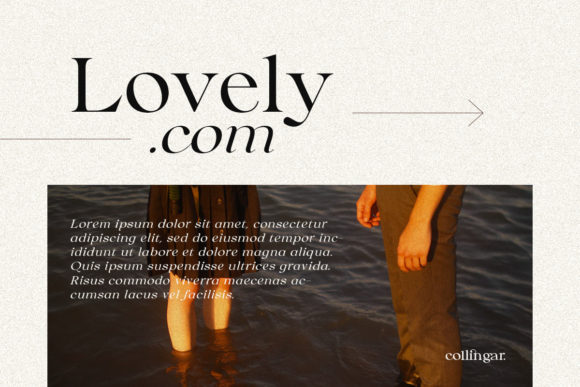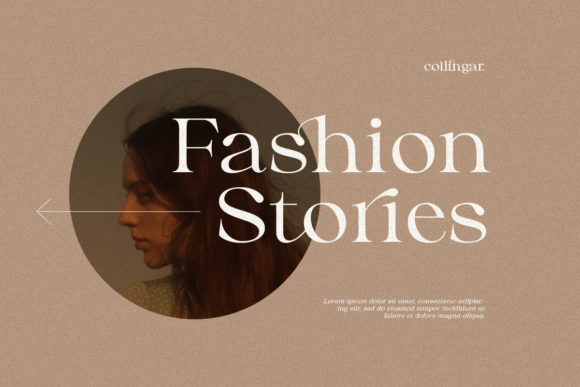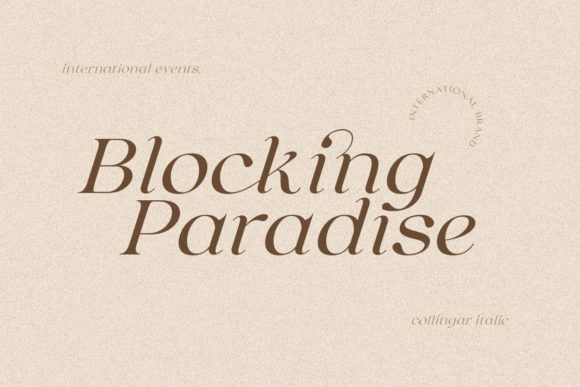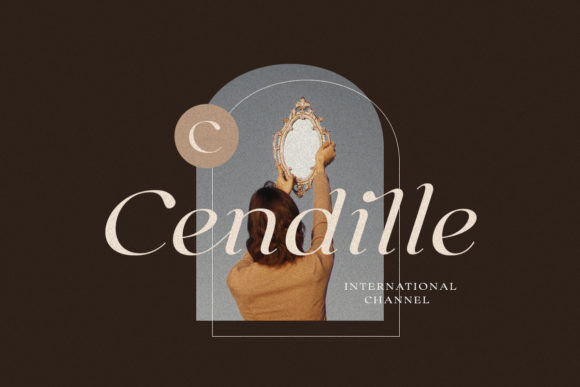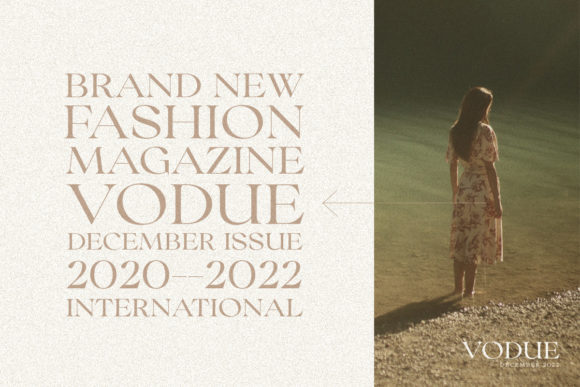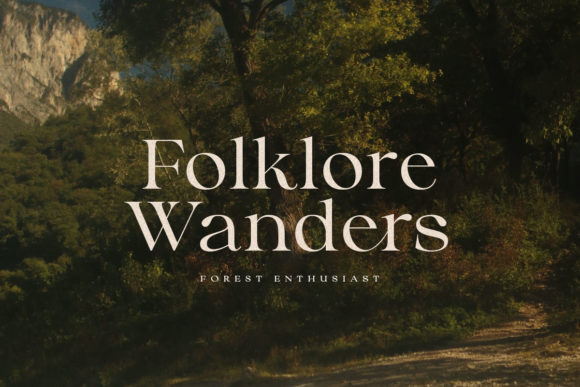
Introducing Collingar Font: Elevate Your Designs with Classic Elegance
In the world of typography, a well-chosen font can make all the difference in transforming a design from ordinary to extraordinary. For designers and crafters seeking a touch of classic elegance and sophistication, Collingar Font is an exceptional choice. This beautifully crafted serif font is not only a feast for the eyes but also a versatile tool that can elevate your projects to new heights.
What Makes Collingar Font Stand Out?
Collingar is a classic and elegant serif font that exudes refinement and poise. Its timeless design ensures that it can be used across a wide range of projects, from luxury branding and high-end magazines to elegant wedding invitations and sophisticated packaging. The font’s versatility is one of its most compelling features, making it an indispensable asset for any designer looking to add a touch of class to their work.
One of the standout features of Collingar Font is its PUA (Private Use Area) encoding. This means that accessing the font’s extensive range of glyphs and swashes is incredibly straightforward. Designers can easily incorporate intricate details and flourishes into their work, allowing for a high degree of customization and creativity. Whether you’re looking to add a subtle touch of elegance or a bold statement piece, Collingar Font provides the tools you need to bring your vision to life.
Crafted for Beauty and Refreshment
Collingar Font was particularly crafted for those who need a beautiful and refreshing look to their designs. In today’s fast-paced digital landscape, it’s easy for designs to become stale and forgettable. However, with Collingar, you can inject a much-needed dose of elegance and sophistication into your work. The font’s classic design ensures that it remains relevant and stylish, even as trends come and go.
Applications of Collingar Font
The applications of Collingar Font are as diverse as they are exciting. Here are just a few examples of how this versatile font can be used:
- Branding and Logo Design: Create a lasting impression with a sophisticated logo that stands out from the crowd.
- Print Materials: Elevate your brochures, flyers, and posters with a touch of elegance and refinement.
- Packaging: Add a touch of luxury to your product packaging and make it truly unforgettable.
- Digital Media: Use Collingar Font to add a touch of sophistication to your website, social media graphics, or digital advertisements.
- Crafting and DIY Projects: Whether you’re creating handmade cards, scrapbooking, or working on other craft projects, Collingar Font can add a beautiful and professional touch.
Why Choose Collingar Font?
With so many fonts available, why choose Collingar? The answer lies in its unique blend of classic elegance and versatility. Here are just a few reasons why Collingar Font should be at the top of your list:
- Timeless Design: Collingar Font’s classic design ensures that it will remain stylish and relevant for years to come.
- Ease of Use: With PUA encoding, accessing the font’s extensive range of glyphs and swashes is incredibly straightforward.
- Versatility: From luxury branding to crafting and DIY projects, Collingar Font can be used across a wide range of applications.
- Elegance and Sophistication: Add a touch of refinement and poise to your designs with Collingar Font’s elegant serif design.
In conclusion, Collingar Font is an exceptional choice for designers and crafters seeking to add a touch of classic elegance and sophistication to their work. Its timeless design, ease of use, and versatility make it an indispensable asset for any creative project. Whether you’re looking to create a lasting impression with a sophisticated logo or add a touch of luxury to your product packaging, Collingar Font provides the tools you need to bring your vision to life. With Collingar Font, you can elevate your designs and take your creativity to new heights.